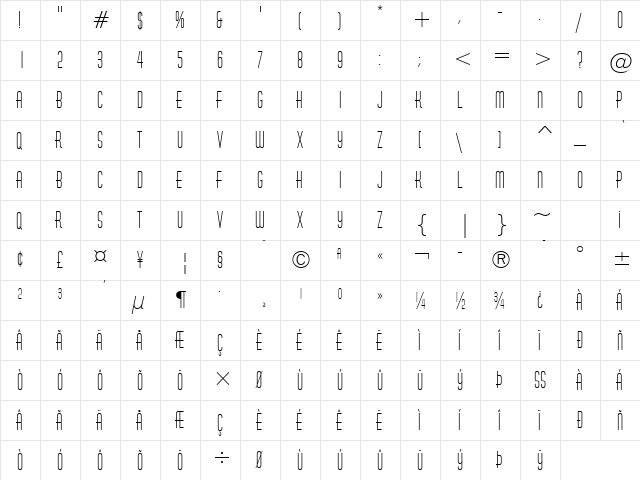
HuxleyVertical BT Regular
Design Context for HuxleyVertical BT Typeface
HuxleyVertical BT takes a measured approach to typography — its balanced proportions and neutral character make it a reliable workhorse for both digital and print work.